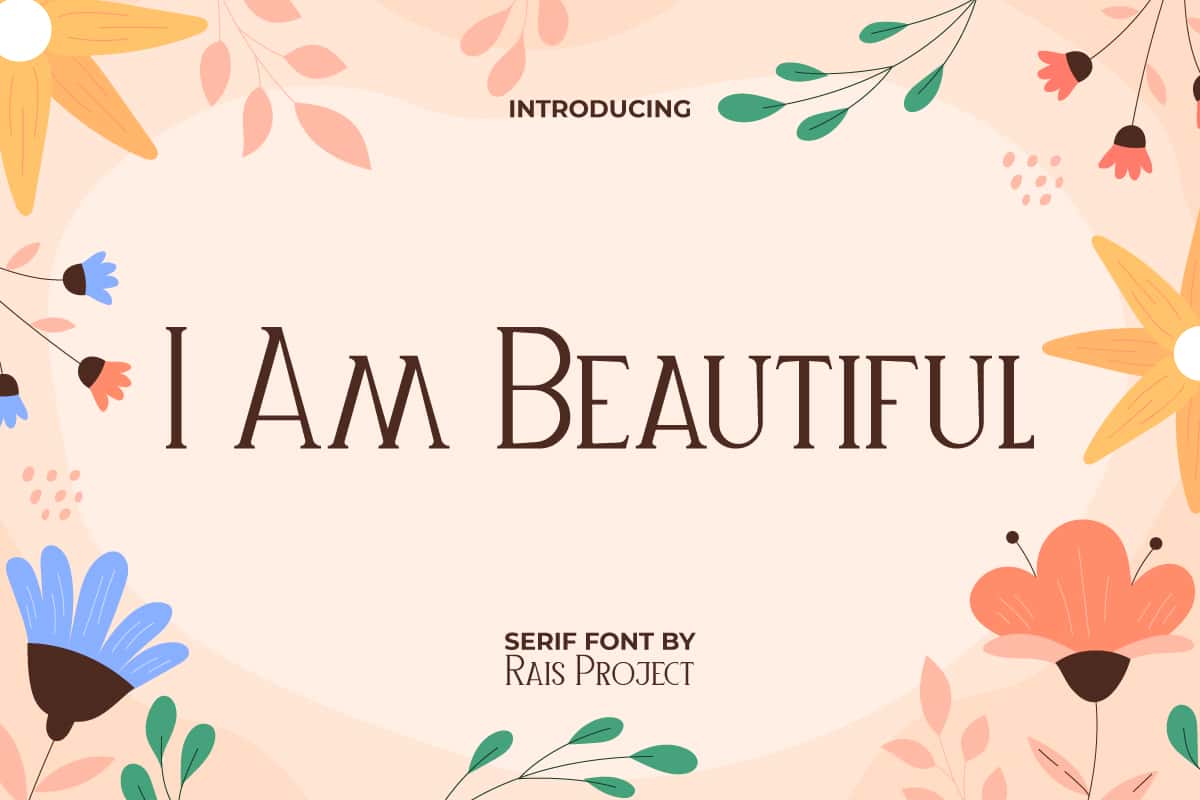
I Am Beautiful Font
I Am Beautiful Font is a sophisticated and elegant serif display font designed by RaisProject Studio. Its simple style can dazzle your eyes and make you fall in love at first sight. Use this font right away and see how stunning it is!
I Am Beautiful Font is a sophisticated and elegant serif display font designed by RaisProject Studio. With thin lines that radiate luxury, this font will make your designs even more beautiful to look at. It will work well in many designs, such as brand image, business card, cover, custom design, gift box, invitation, label, menu, product packaging, quote, signage, web, and more! You can see the demo font below, input any word you want so you can see what it looks like:
I Am Beautiful Font includes a full set of ALL CAPS with different size between Uppercase and Lowercase, Numerals, and large range of Punctuation. This stunning font will be suitable for various industries, such as advertisement, beauty product, event or wedding organizer, fashion, jewelry and accessories, photography, printing, publishing, salon and spa, etc. What you get: